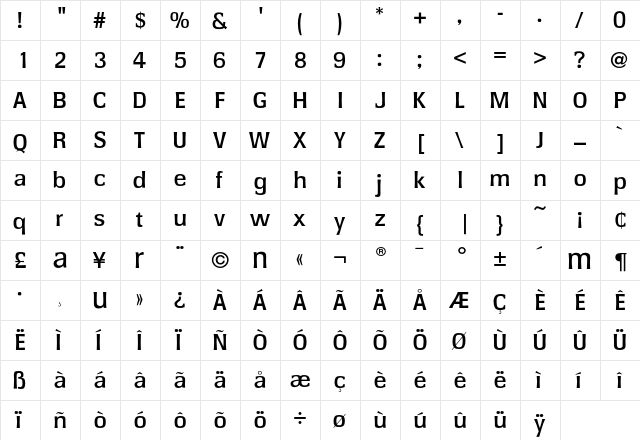
Cartel-Lgt Regular
Design Context for Cartel-Lgt Typeface
Cartel-Lgt is a composed and adaptable typeface that performs quietly and consistently across a wide range of design contexts.